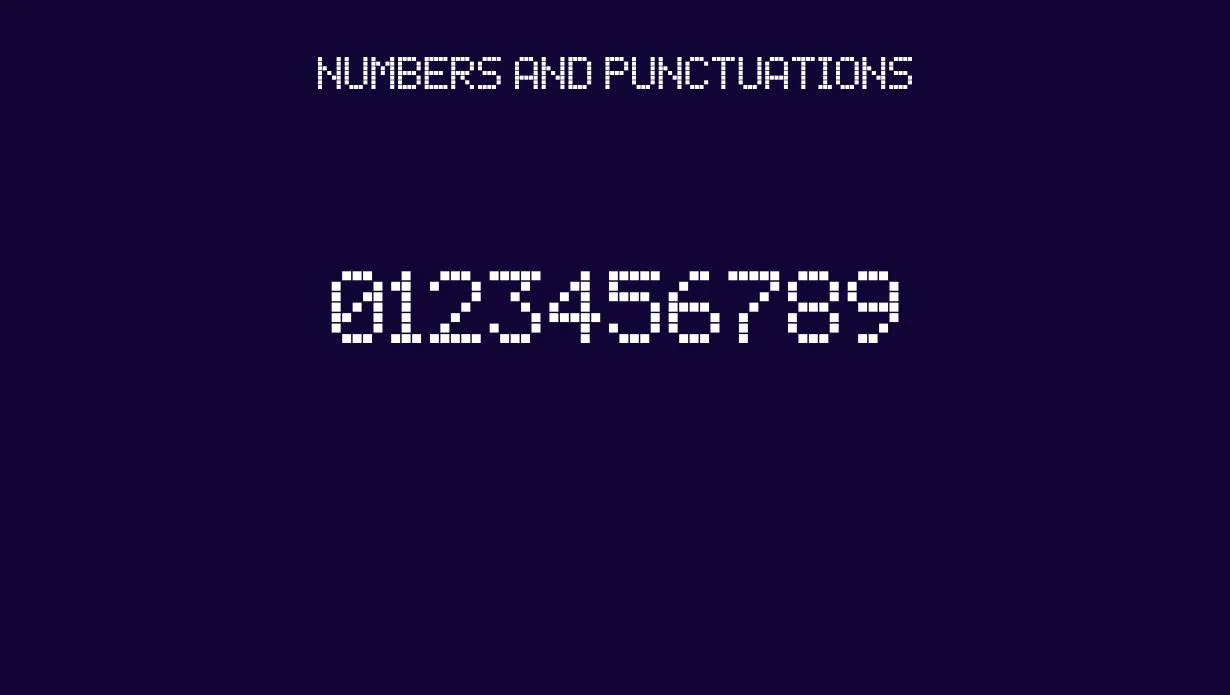
LCD Phone Font Free Download
LCD phone font is very much appealing to website and app developers. The designer of this amazing font is none other than Raúl Andrés Pérez Canseco and publicized by Grafito Design Foundry. It is available in OTF and TTF formats perfect for all computers.
LCD phone typeface has dotted characters that are highly readable. It is comprised of uppercase, numerals, and lowercase letters.
LCD Phone Font Info
| Designer | Grafito Design Foundry |
| Style | Techno |